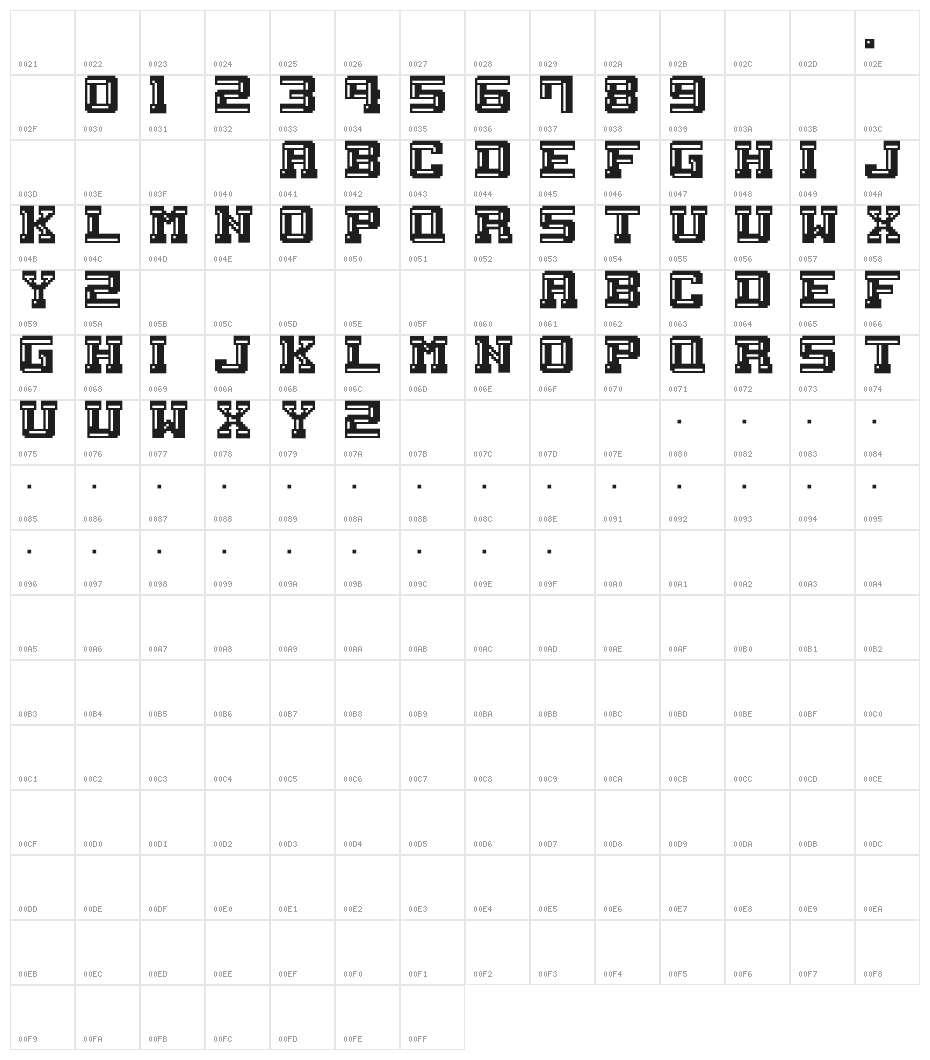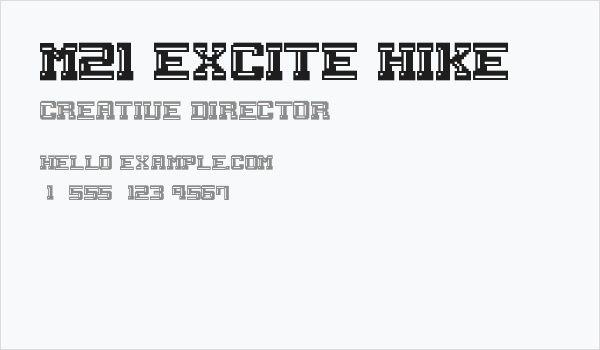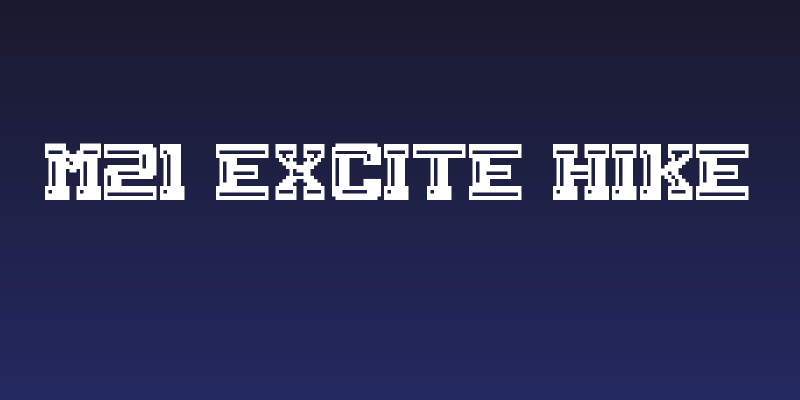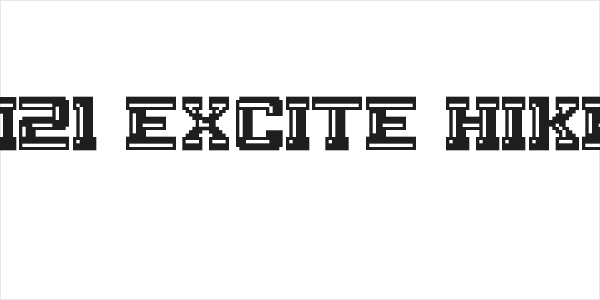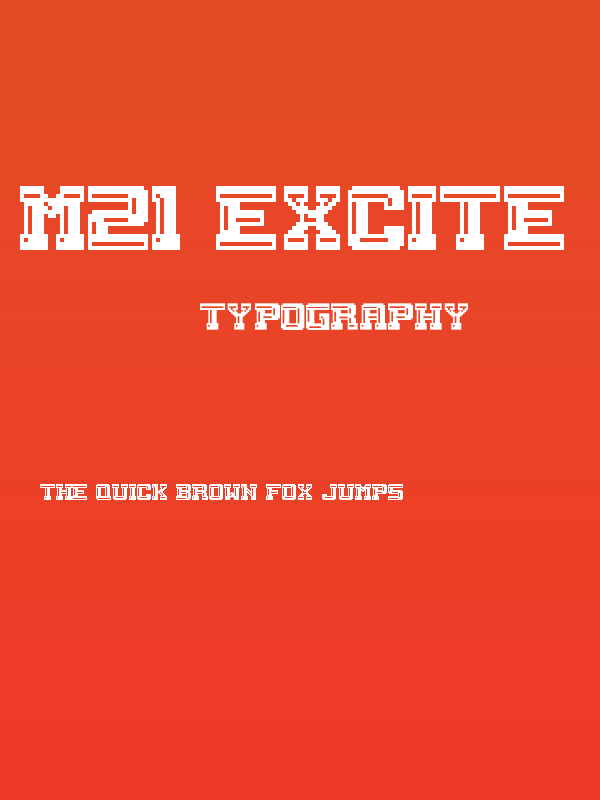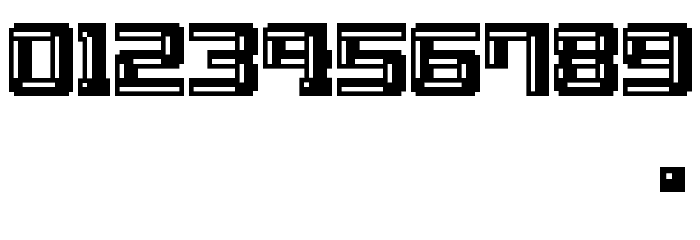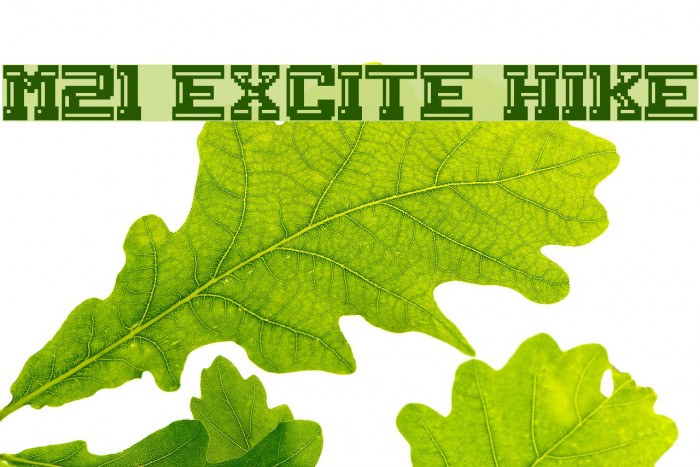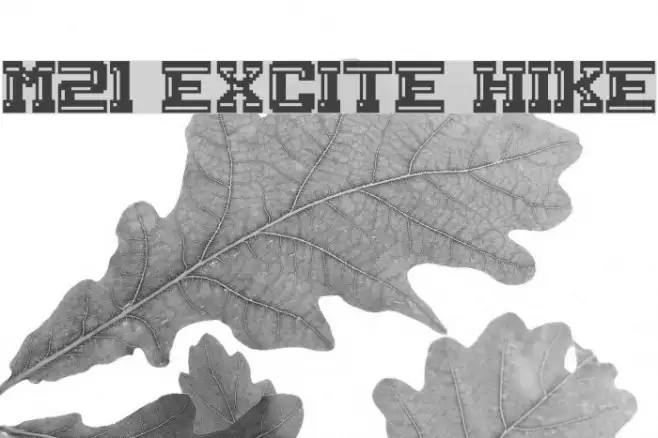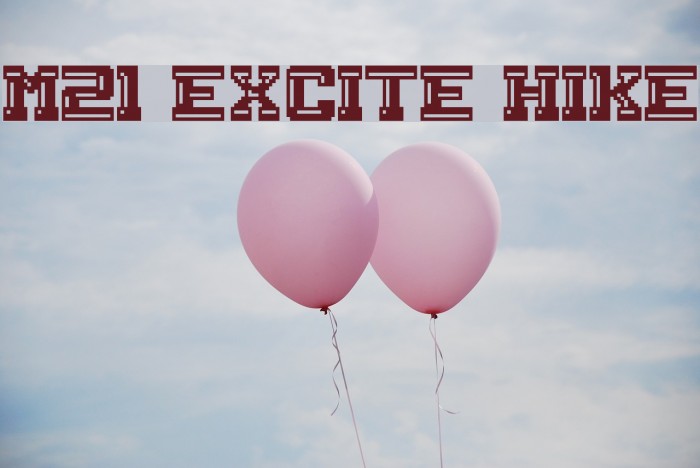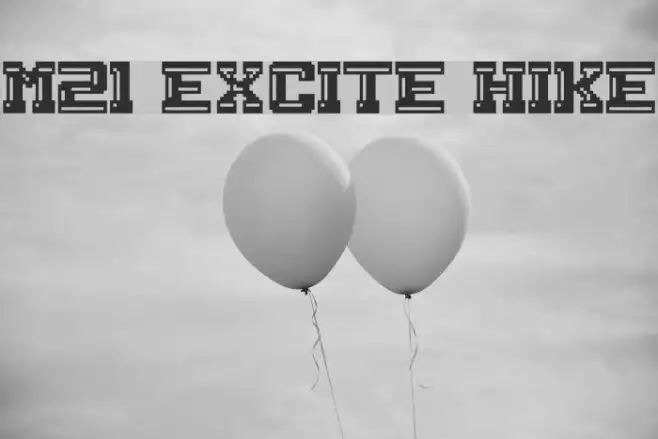
M21_EXCITE HIKE Font
M21_EXCITE HIKE Description
This font features a bold, geometric design with a distinctly digital aesthetic. Each character is constructed with a blocky, pixelated style reminiscent of early video game graphics. The uppercase letters are uniform in height, with sharp angles and a consistent stroke width that gives the font a cohesive appearance. The numerals and special characters follow the same design principles, ensuring visual harmony across all elements. The font's unique style makes it stand out, offering a retro yet modern feel that is both playful and striking.
| Overall Style | Retro, Digital |
| Proposed Projects | Ideal for video game graphics, retro-themed posters, digital art projects, and tech-related branding. |